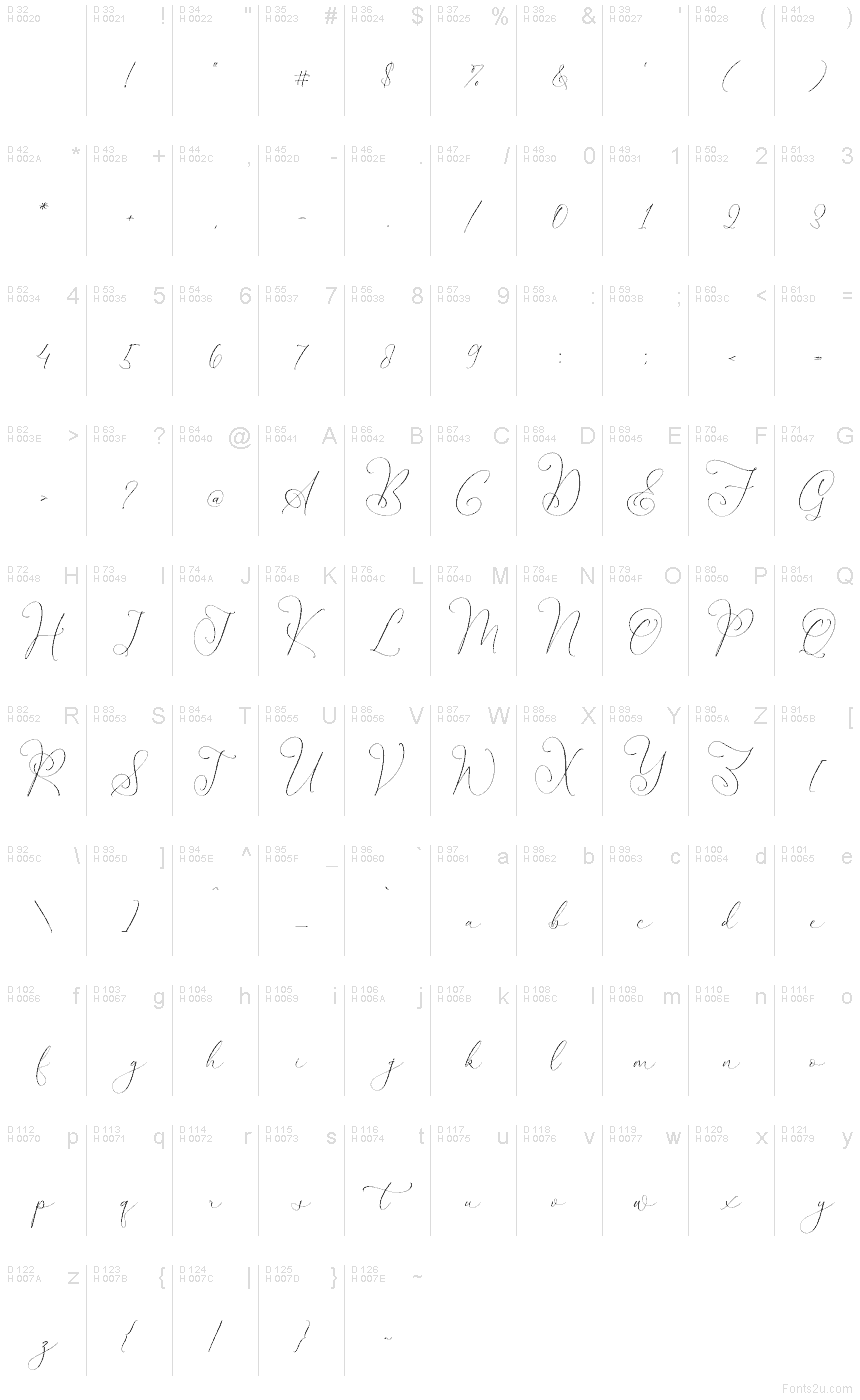
Senorytta
Senorytta font by Storytype Studio is a free light handwritten font. Built for moments that need grace, it floats on gossamer-thin strokes and generous swashes, with an airy rhythm that feels like fresh ink skimming fine paper. The contrast is subtle, the connections fluid, and those long, whiplike flourishes add ceremony without shouting—just the right dose of romance for refined branding.
Using Senorytta, headlines sing on wedding suites, signature-style logos, boutique packaging, beauty labels, event posters, and elegant menus. This free font shines when set large, with a touch of tracking to protect its hairlines. Pair it with a quiet, neutral sans serif to let the script carry the emotion while body copy stays clear and calm.